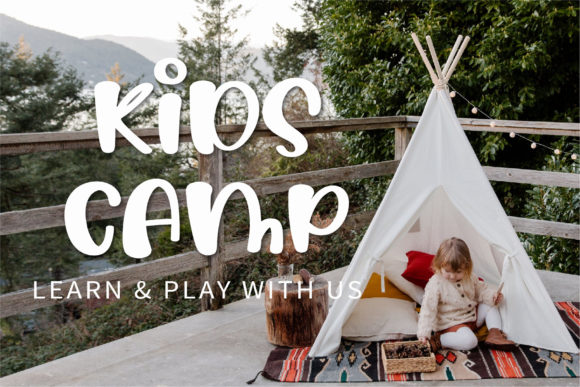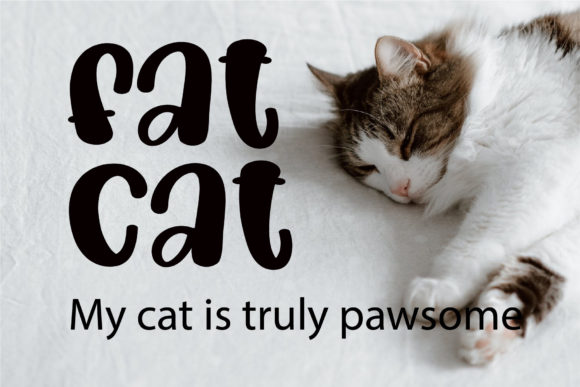
Summer Camp Font
db-ku.com - Script & Handwritten -- Summer camp is a cool, friendly, and informal handwritten font that can be used for all chalkboard quotes or teaching material! Its authentic look and feel will add a personal and realistic feel to your designs.